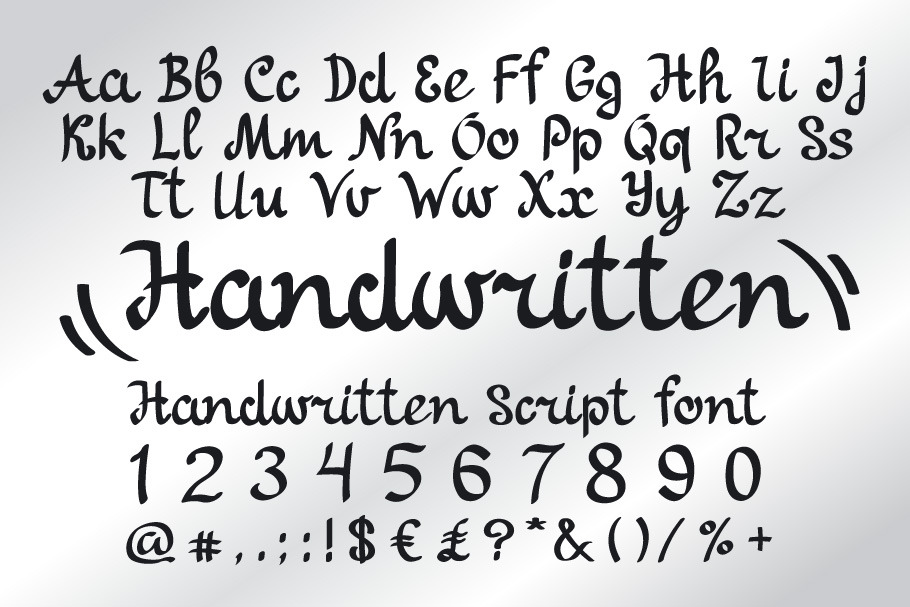
Handwritten Script Font
Handwritten is a handlettering script font!. Use this font for logos, social media, websites, blogs, wedding decor, home decor, invitations, Instagram, business cards, branding, and more! Also includes some vector congratulations in Adobe Illustrator format. OTF, WOFF, TTF, AI, EPS, PDF format included.